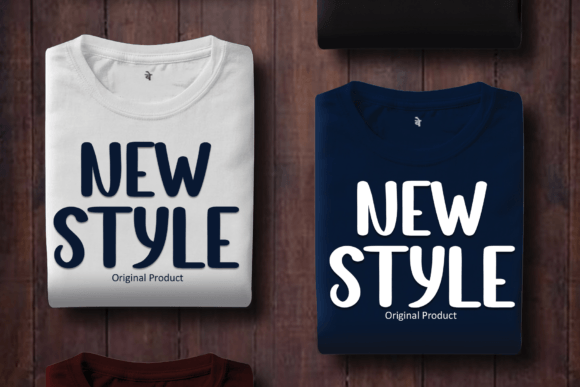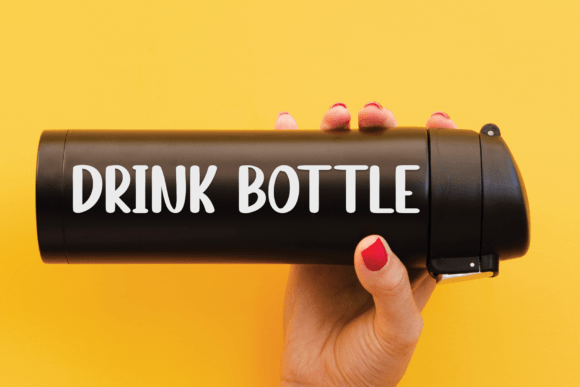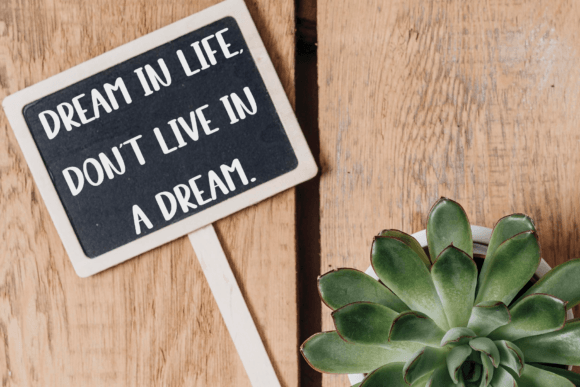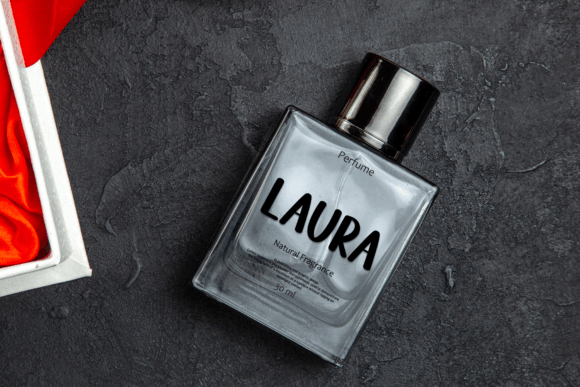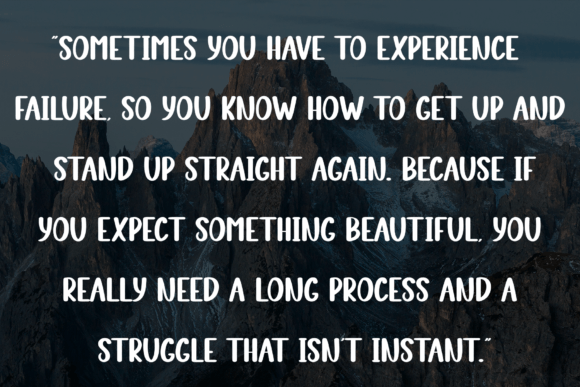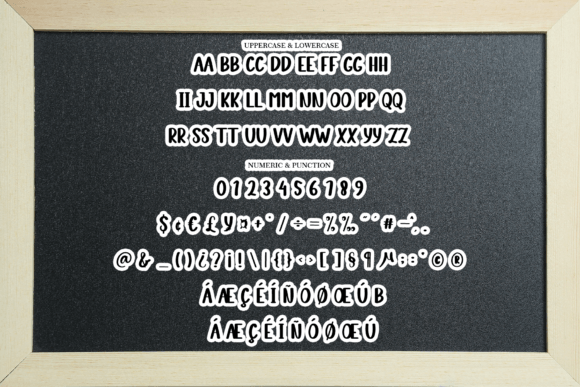
Introduction to Information Boards Font
Do you remember the moment when you stumbled upon the perfect design element for your project? Maybe it was a quirky illustration or a bold typography that brought your creative vision to life. For me, it was a font – a sweet and friendly handwritten display font that immediately made me think of a wedding invitation or a cute card. That’s where Information Boards Font comes in, a delightful design resource that’s sure to add a cool touch to any creative project.
Information Boards Font is a free download that’s perfect for designers looking for a high-quality, unique font to elevate their designs. With its transparent background, this font can be easily combined with other design elements to create a cohesive look. Whether you’re working on a wedding invitation, a birthday card, or any other design project, Information Boards Font is a valuable resource that’s sure to make your design stand out.
Key Features of Information Boards Font
- High-quality design suitable for various creative projects, including presentations, posters, and brochures.
- Comes with a transparent background, allowing for easy customization and integration into various design elements.
- Features a clean and modern design style, perfect for modern creative projects and presentations.
Honest Review: Information Boards Font
As a designer, I’m always on the lookout for high-quality design resources to elevate my creative projects. Recently, I came across the Information Boards Font, and I’m excited to share my thoughts on it.
What works well: ✨ The font is incredibly versatile, making it perfect for a wide range of design applications, from digital signage to print materials. The clean and modern aesthetic also makes it a great choice for branding and identity design.
What works well: ✨ The font is also highly customizable, allowing me to easily adjust the size, color, and style to suit my design needs. Plus, the free download option is a huge bonus, making it accessible to designers of all levels.
Limitations: ⚠️ One thing to note is that the font doesn’t come with a transparent background option, which can be a bit limiting for designers who need to work with complex layouts.
Overall, I’m impressed with the Information Boards Font. It’s a solid addition to any designer’s toolkit, and I would definitely recommend it to colleagues and peers.
- High-quality font suitable for a wide range of design applications
- Easy to customize and adjust to suit design needs
- Free download option makes it accessible to designers of all levels
Introduction to Information Boards Font
The Information Boards Font is a free download design resource ideal for creating engaging and informative visual content. This high-quality font is perfect for various creative projects, including presentations, posters, and social media graphics.
The Information Boards Font is ideal for various applications, including:
- Presentations and slides
- Infographics and data visualizations